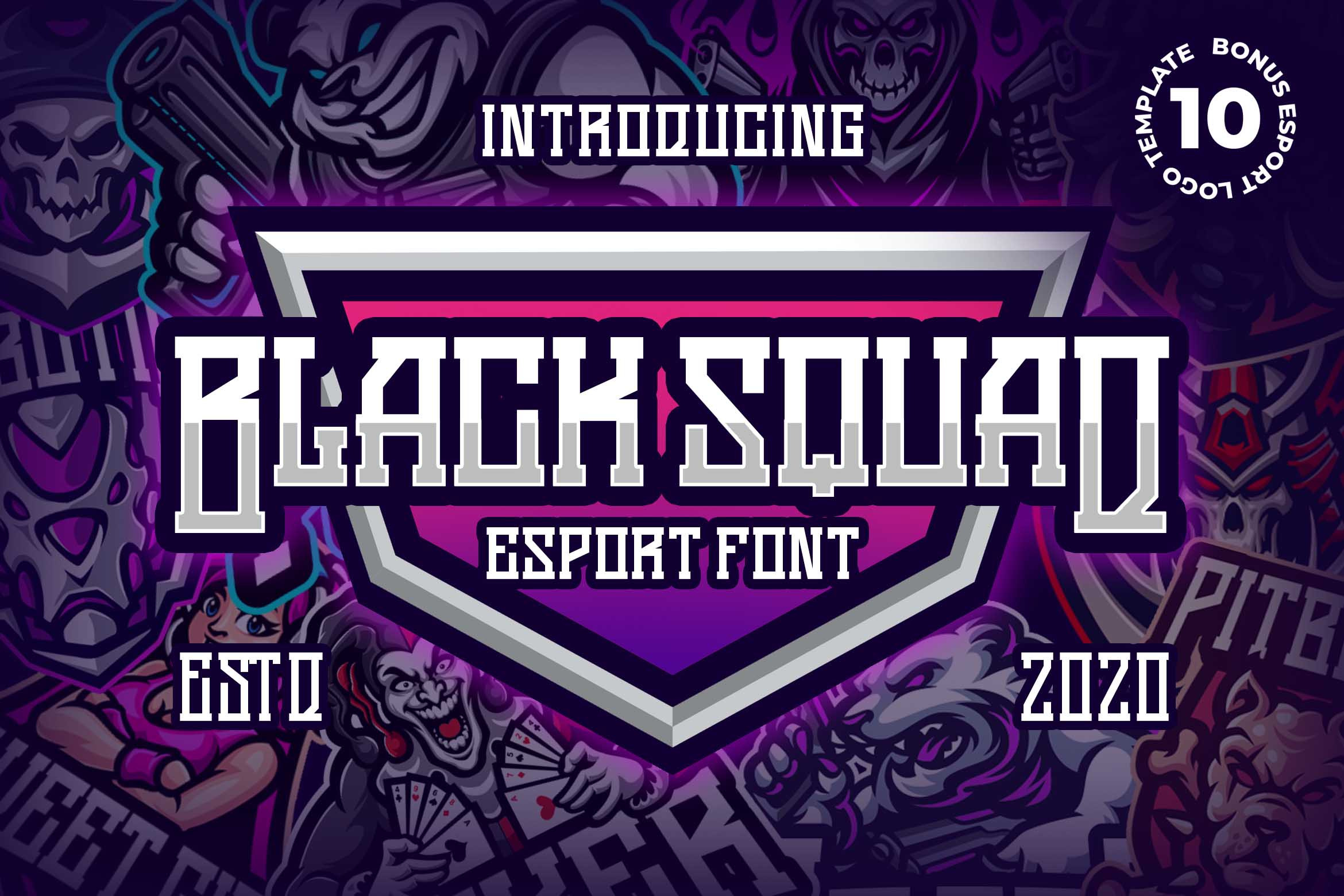
Black Squad Esport Font
Introducing of our new product the name is Black Squad Esport Font. Black Squad inspired by Esport style this font is a fun theme very good for sport/esport logo and etc.